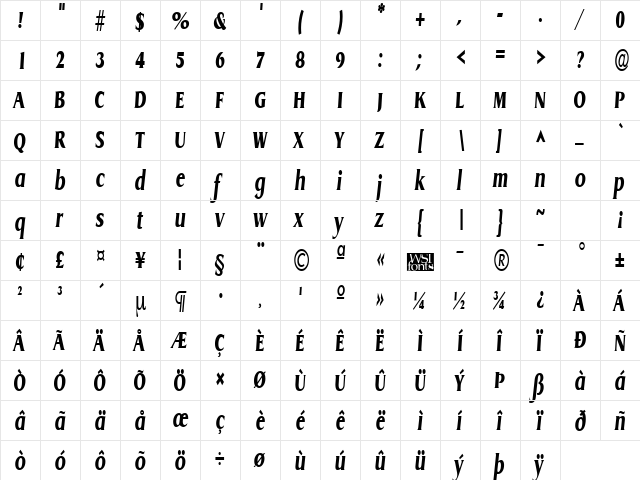
GriffonCondensedXtrabold Italic Font Preview
Design Context for GriffonCondensedXtrabold Typeface
GriffonCondensedXtrabold takes a measured approach to typography — its balanced proportions and neutral character make it a reliable workhorse for both digital and print work. The slanted form adds forward momentum and visual energy. The heavy weight commands attention and anchors typographic hierarchies. Its narrow stance lets it pack a punch even in space-constrained designs.
Pro Tip: Try GriffonCondensedXtrabold for annotation and caption copy alongside an upright companion — the contrast in angle creates a dynamic but ordered typographic system.